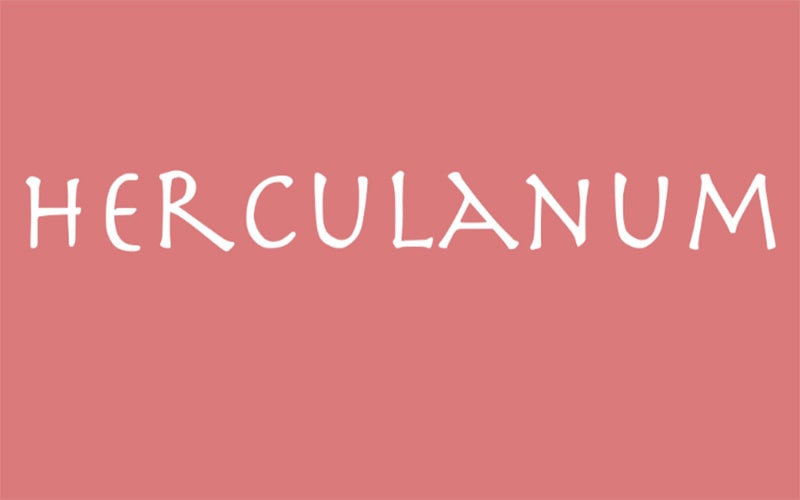
Herculanum Font is a wonderful Sans Serif typeface based on the Roman letterforms of the first century. It was released in 1990 for the first time.
This is the creation of Mr. Adrian Frutiger, a well-known Swiss designer. Adrian Futiger is notable for many other eminent fonts.
The typeface, like Avenir font, is the best creation of this designer. This great pairing function typeface provides excellent and keen features.
This regular font family incorporates 6 unique wights which include Bold, Outline, Pro Bold, Pro Outline, Pro Roman, and Std Roman.
Herculanum Font
This typeface is excellent for its copy-paste work and office tasks like general reports, Presentations, Webpage designs. It is suitable for different programs such as Microsoft Word and Adobe Photoshop.
It can use to create headlines, official documentation, movie titling, invoices, records, short or lengthy paragraphs, Business cards, Invitation cards, Social media posts, Book covers, and Advertisements.
And also suitable for a huge list of designs such as Logo designs, Homeware designs, Banners and Posters, Directories and signage, Brochures, T-shirt designs, Leaflets, Branding projects, and Product packaging.